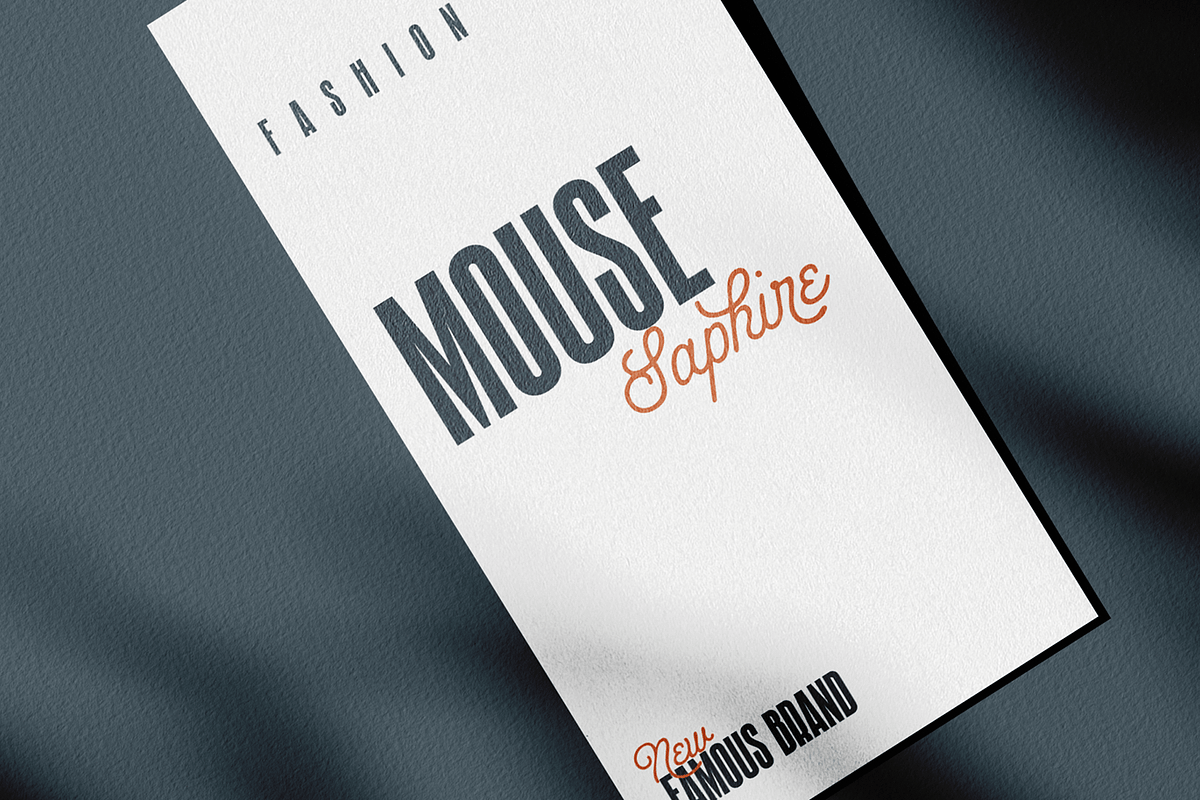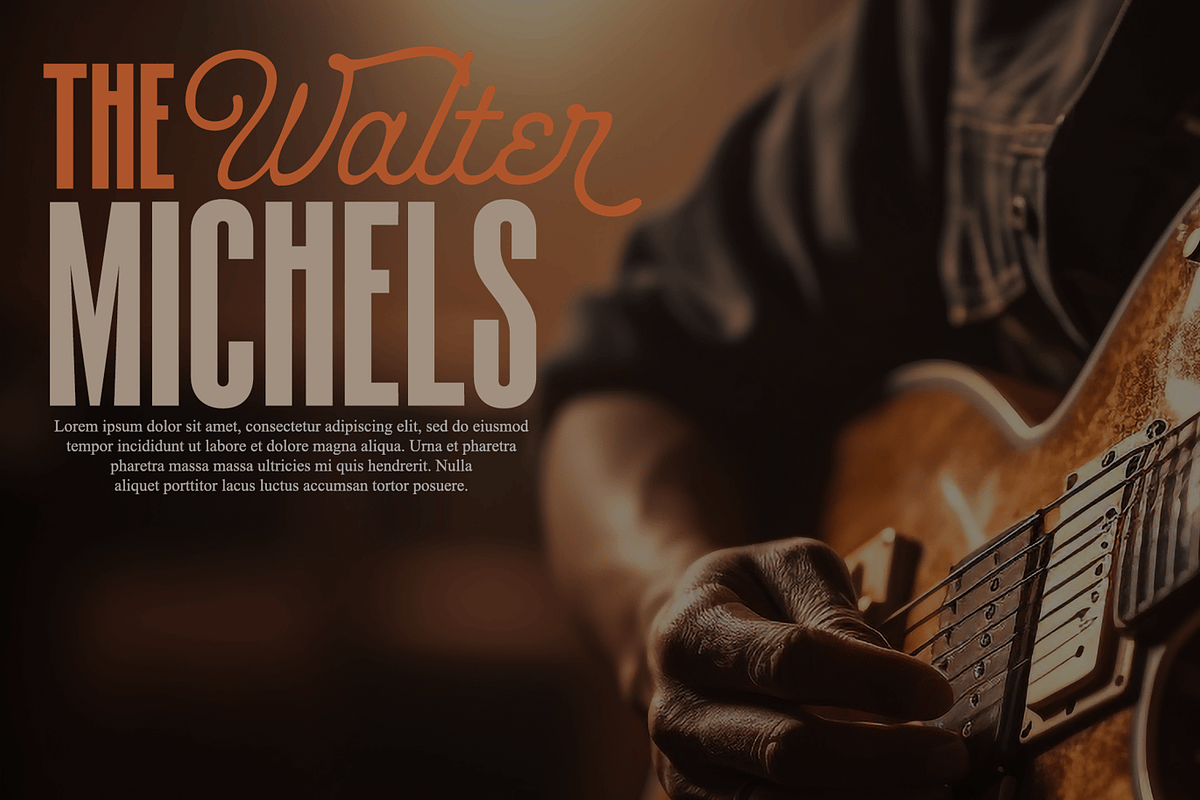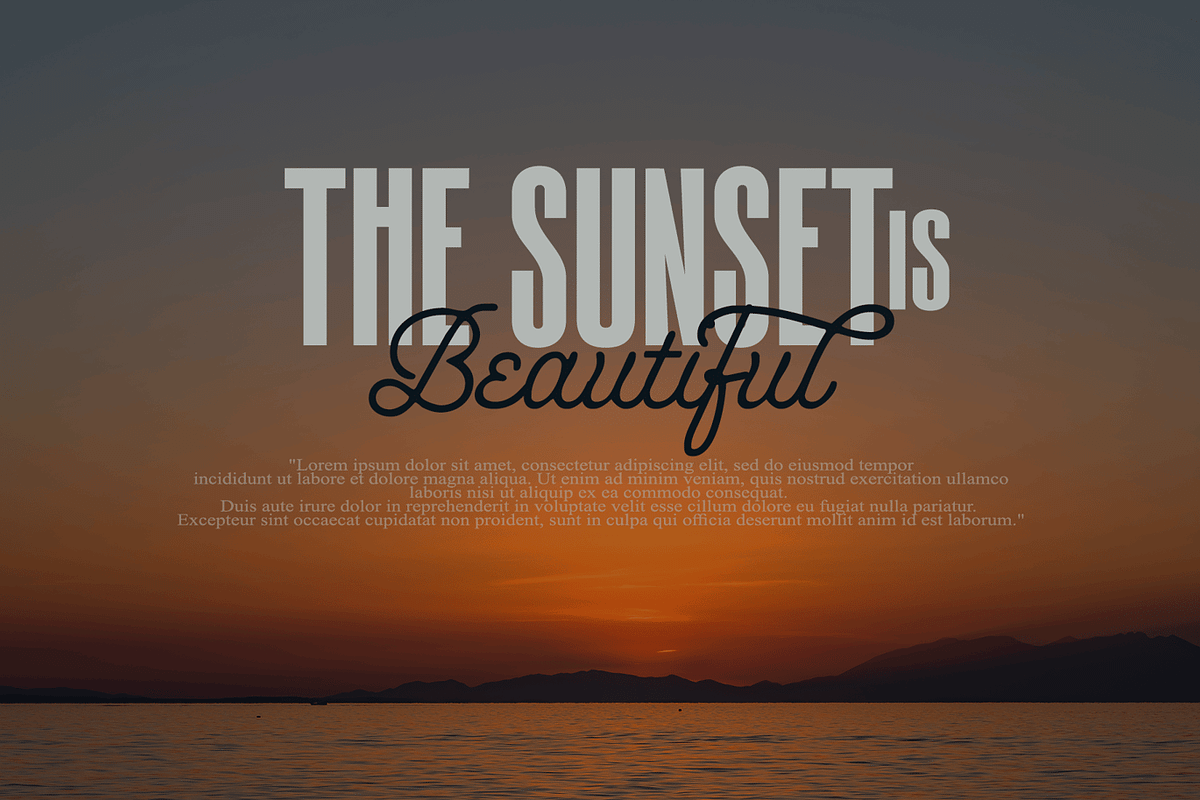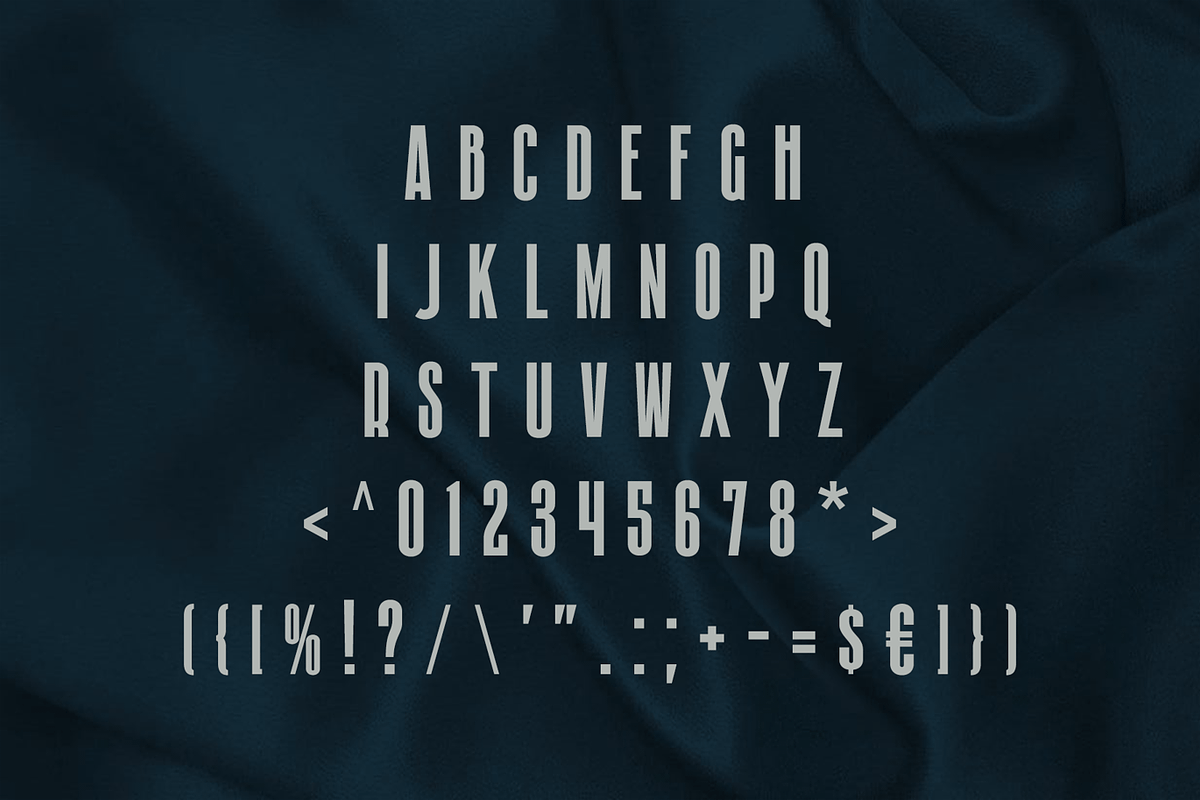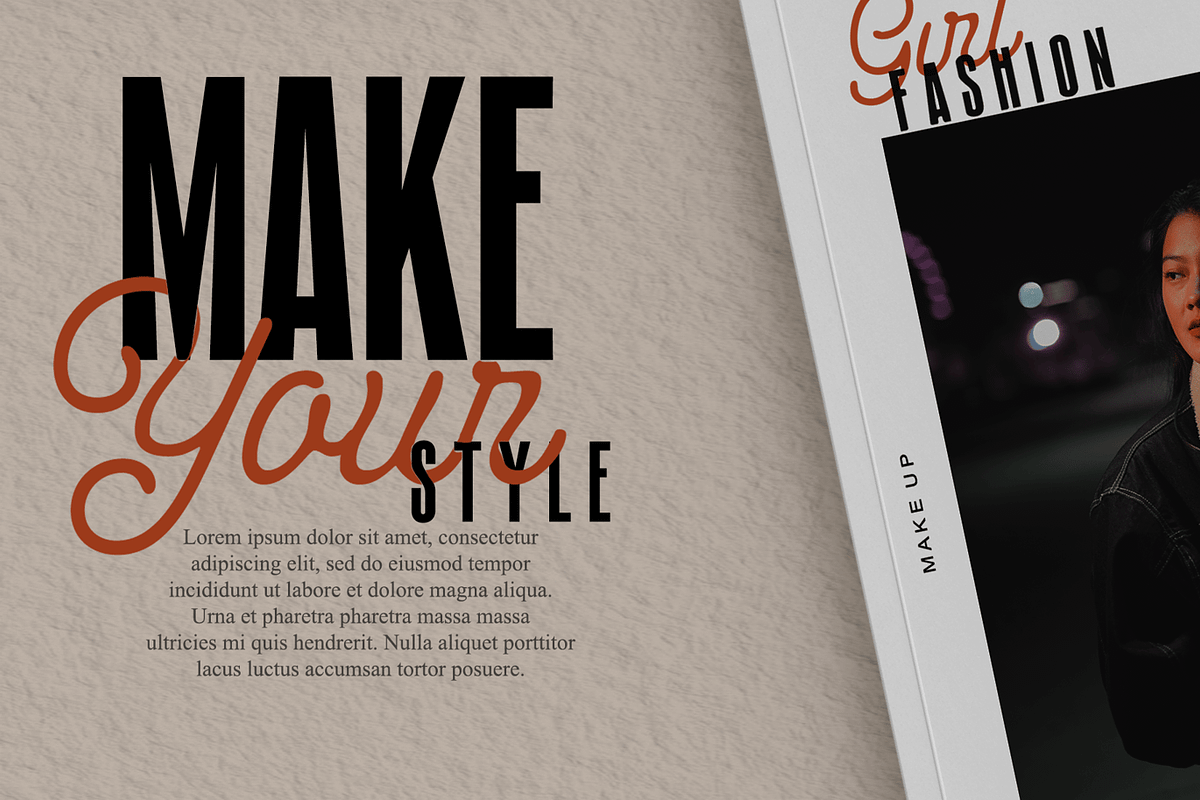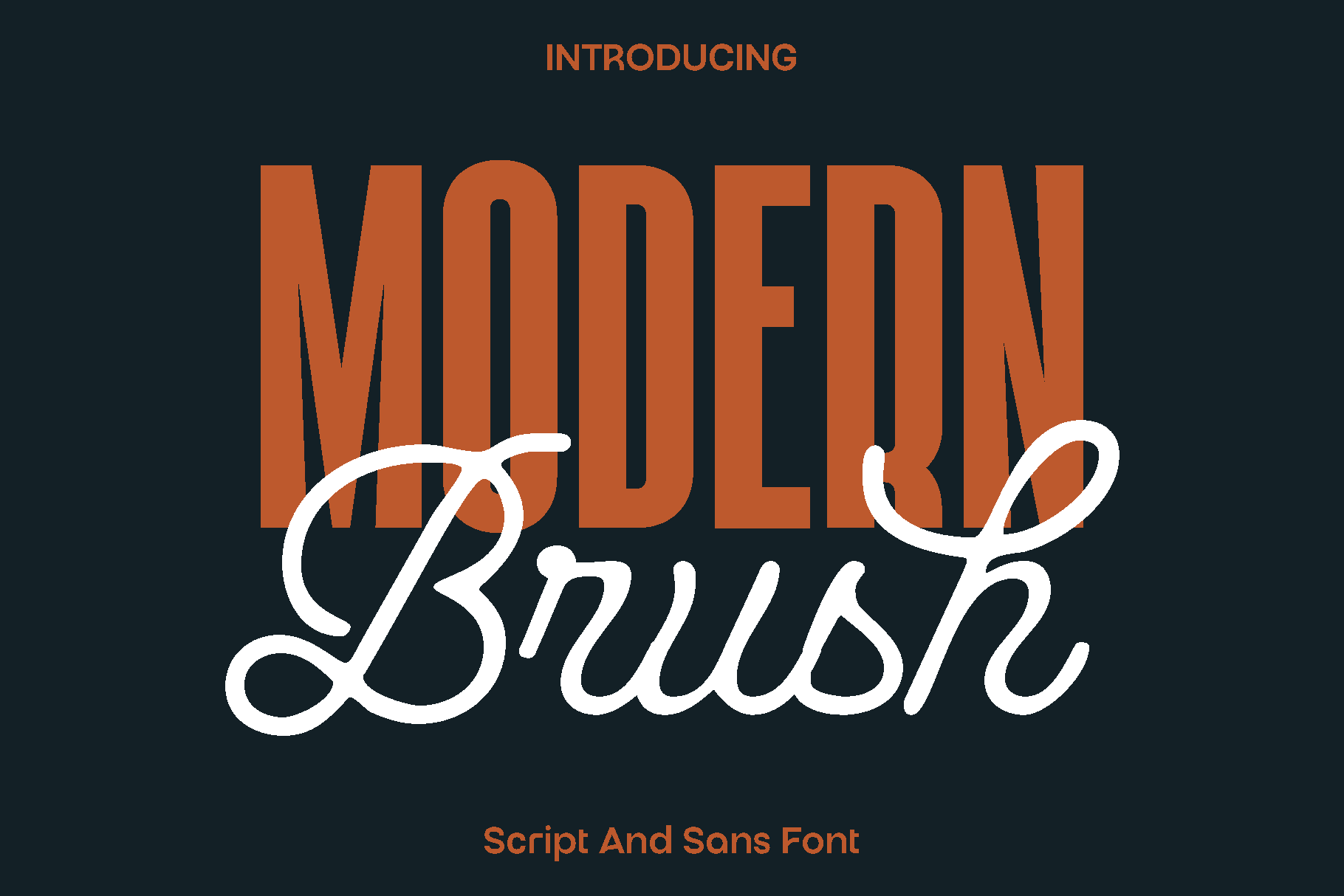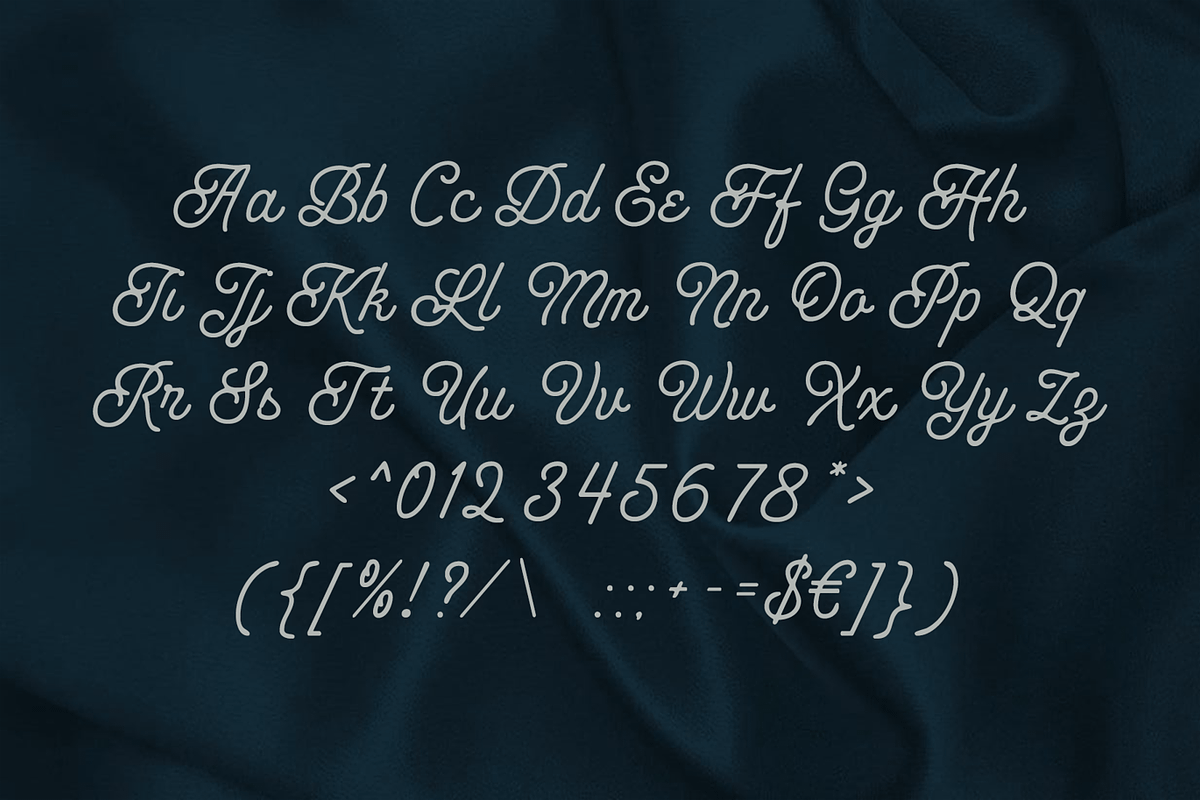
Modern Brush - Script And Sans Font
Modern Brush Duo is a versatile font pairing designed to bring harmony between clean structure and expressive creativity. Combining a contemporary sans serif with an energetic brush script, this duo was crafted to give designers the freedom to create balanced compositions that feel both modern and personal. The contrast between the smooth, minimal sans serif and the fluid, hand drawn script creates a dynamic visual rhythm that enhances any design.
Inspired by modern branding trends and expressive lettering styles, Modern Brush Duo feels stylish, approachable, and full of character. The sans serif provides clarity and professionalism, while the brush script adds warmth and artistic flair. Together, they create a powerful typographic combination that works beautifully across a wide range of creative projects.
This font duo shines in branding, logos, book covers, magazines, photography overlays, quotes, blog headers, posters, and advertising materials. Whether you are designing for print or digital platforms, Modern Brush Duo helps you craft eye catching layouts with a strong visual hierarchy and personality.
Designed with flexibility in mind, the fonts maintain excellent readability while allowing creative expression. Use the sans serif for clean headlines and body text, then pair it with the brush script to highlight key messages or add a signature style. Modern Brush Duo is perfect for designers who want a complete typography solution that blends elegance, creativity, and modern appeal.
Modern Brush Duo Features:
• Two fonts included: Modern Sans Serif and Brush Script
• Uppercase and lowercase characters
• Numerals and functional punctuation
• Multilingual support
Modern Brush Duo is your go to pairing for creating designs that feel contemporary, expressive, and visually engaging.